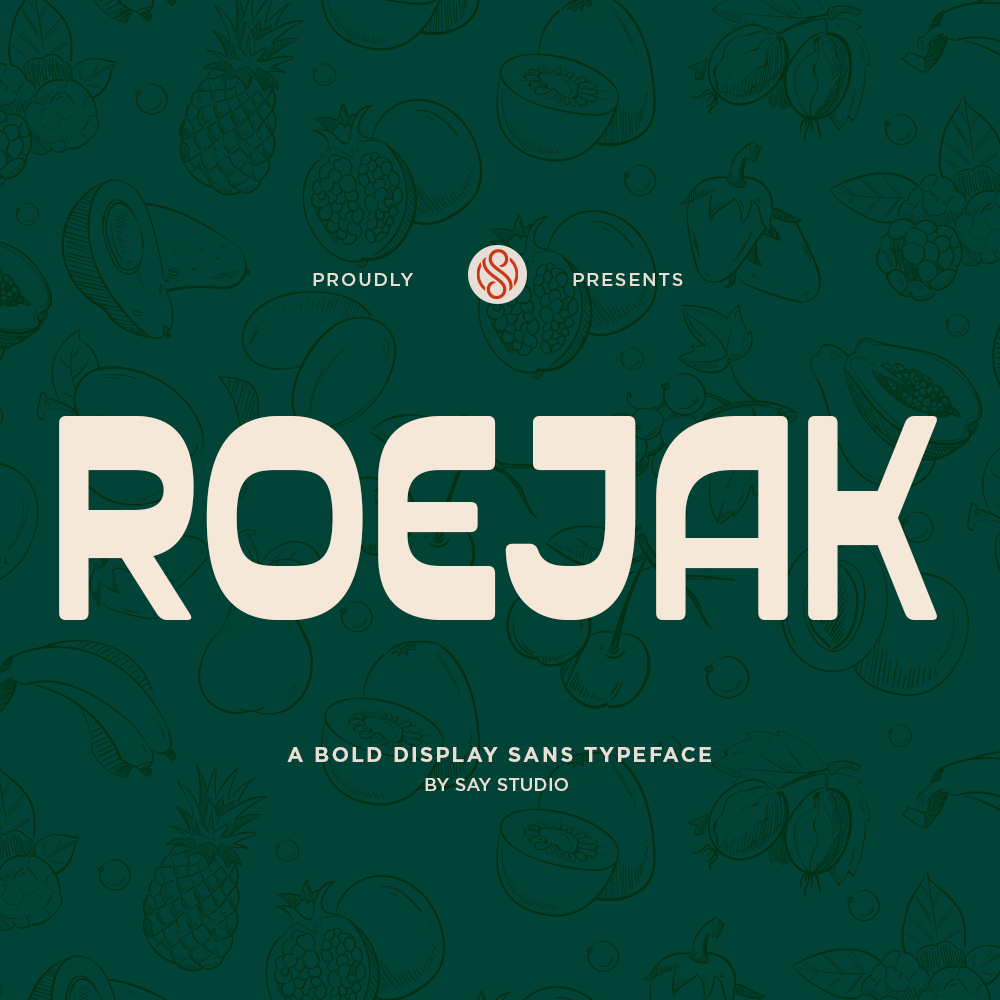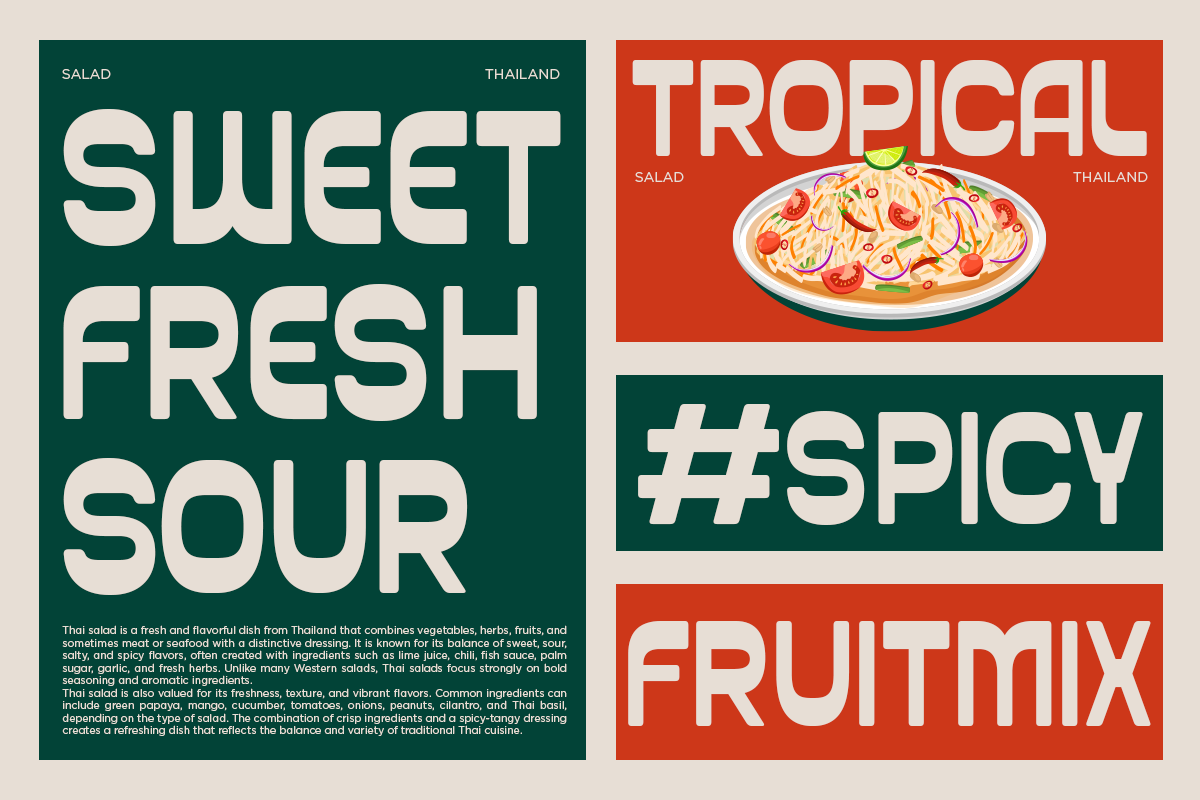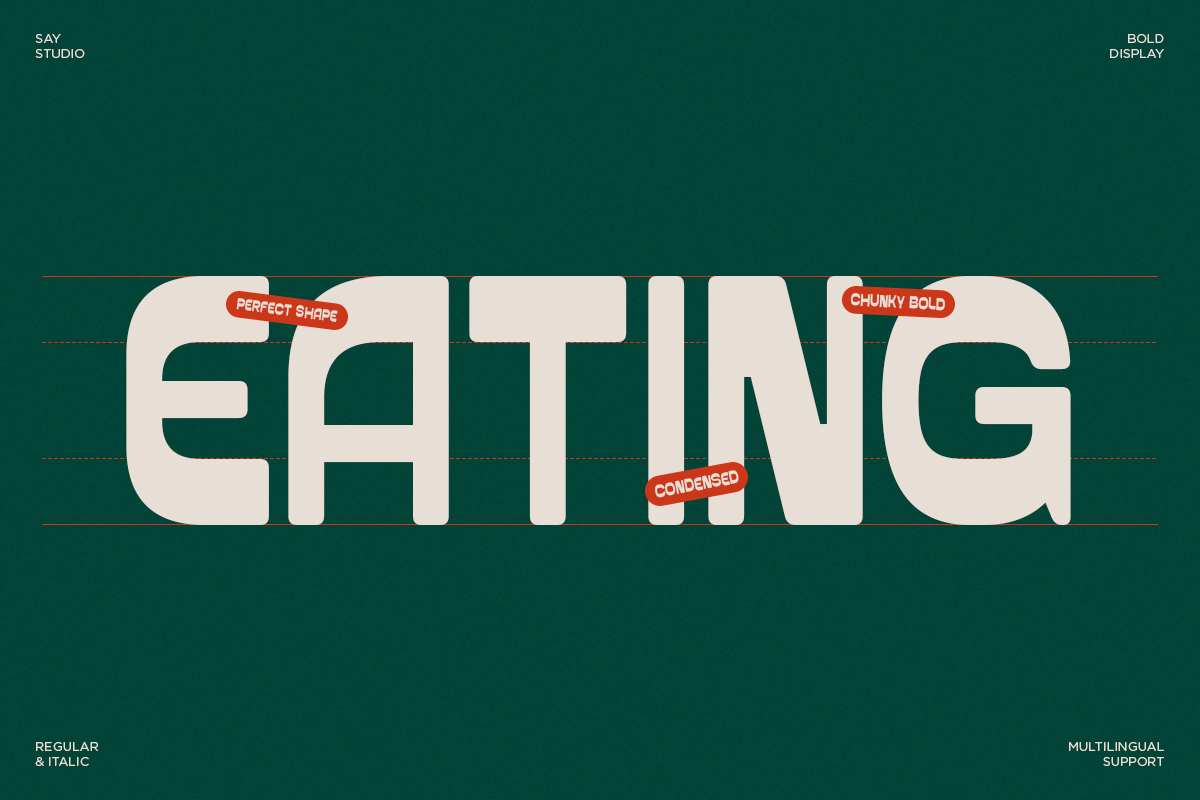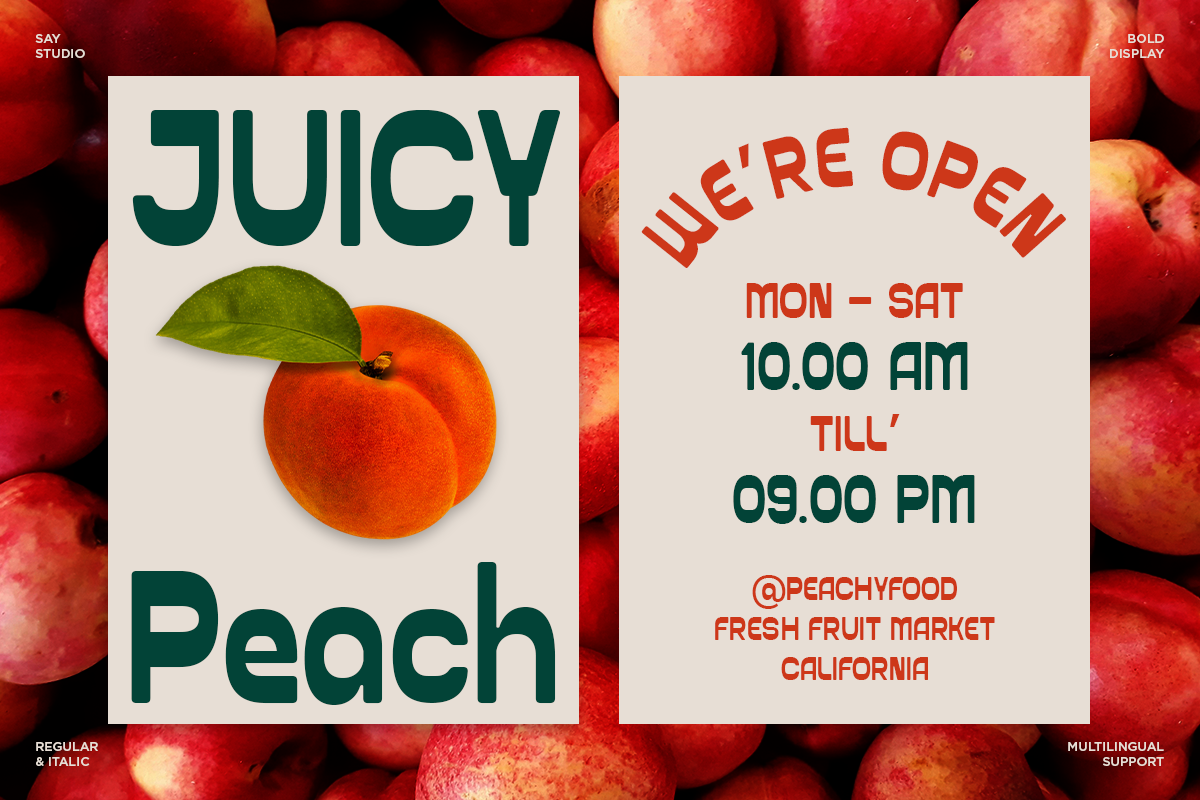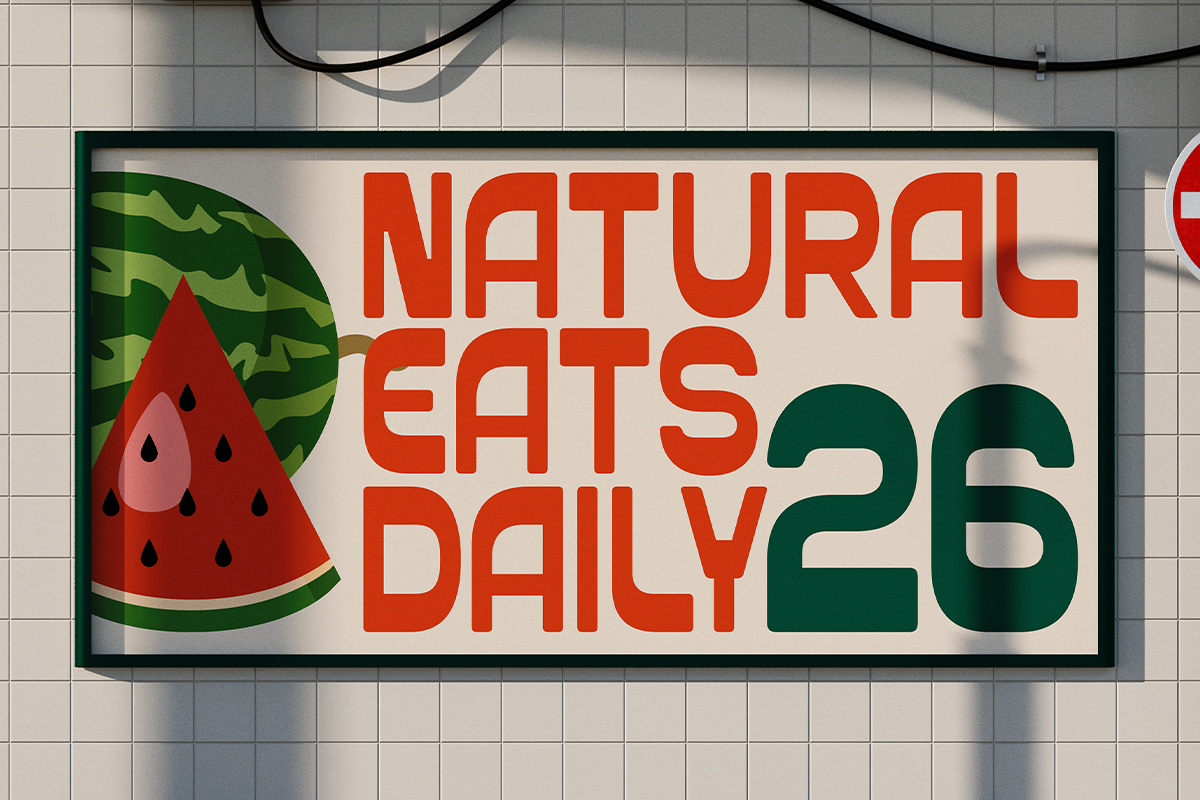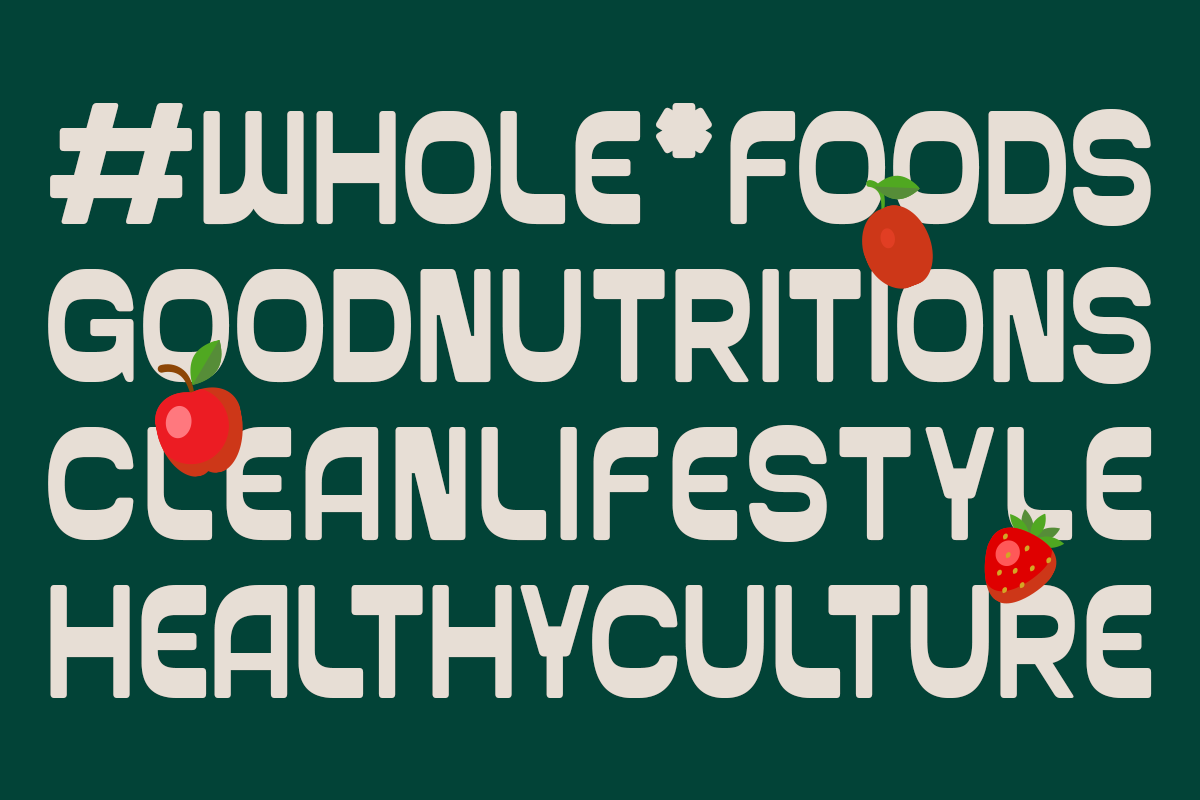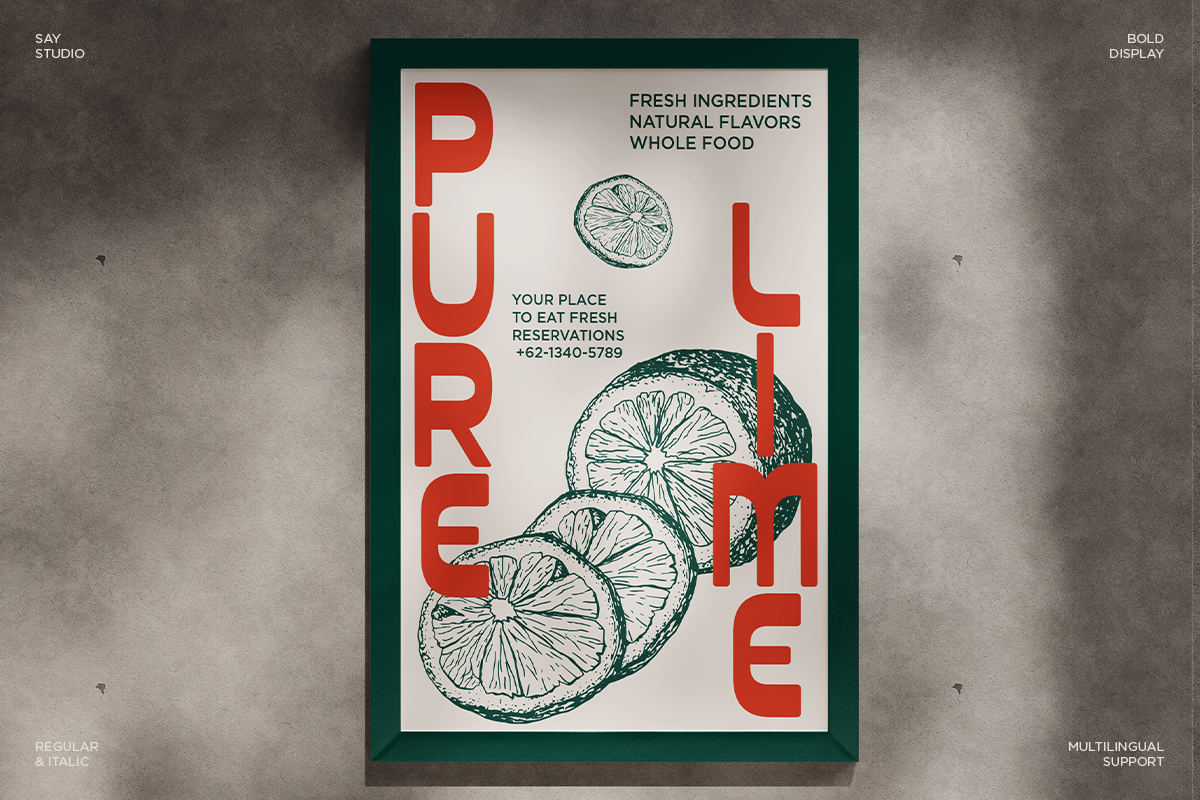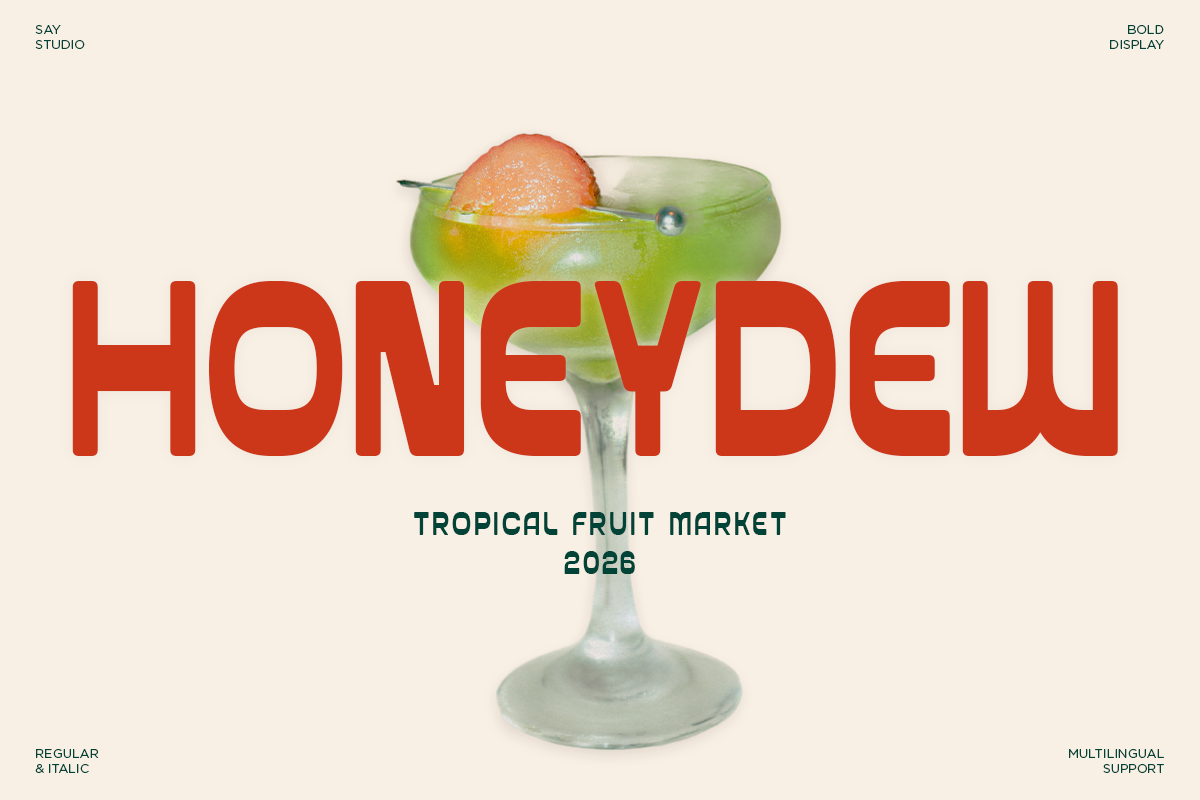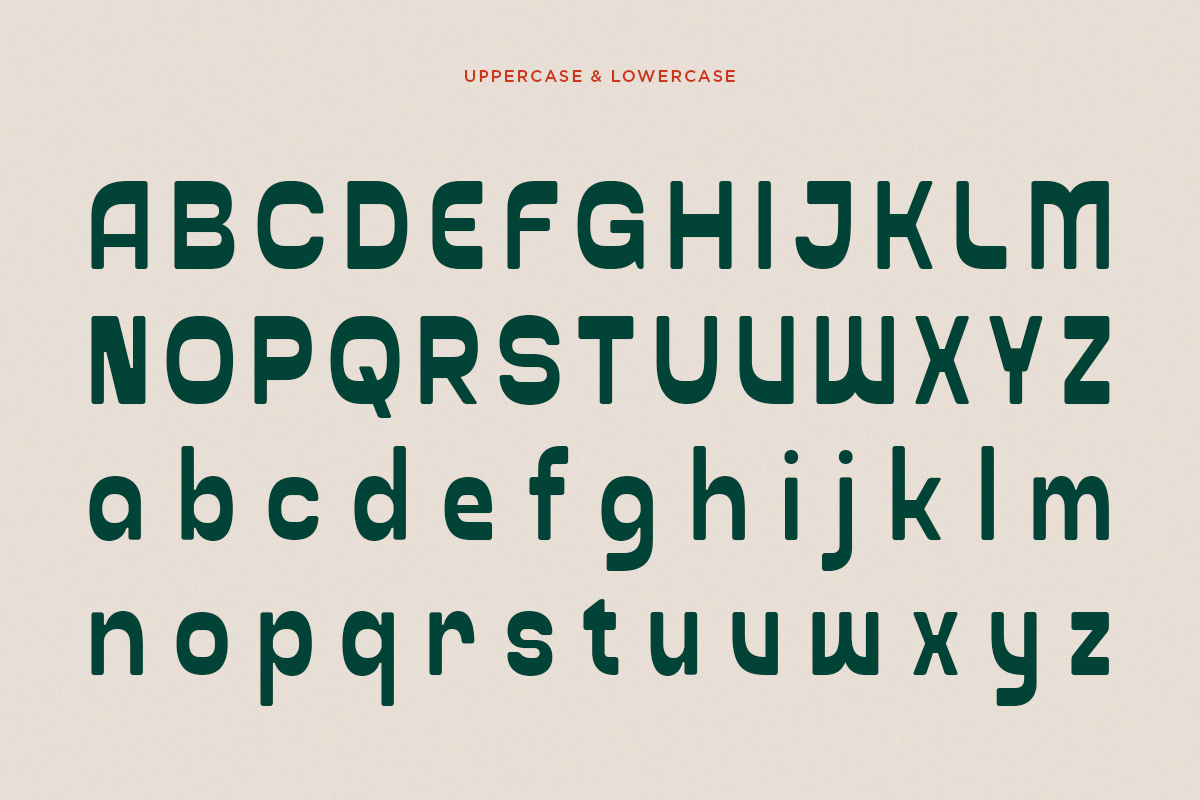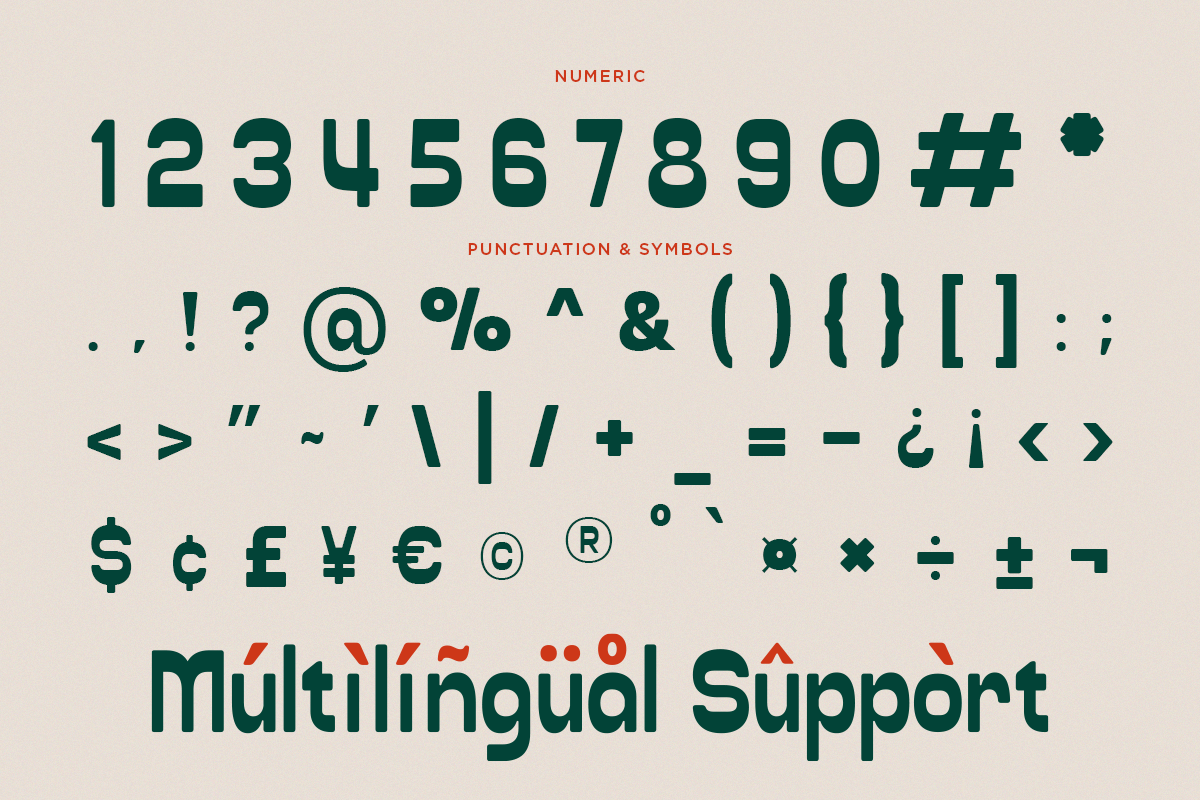
Roejak - Bold Condensed Sans Serif Font
Roejak is a bold display sans serif font designed to bring a strong, playful, and distinctive personality to your typography. Its chunky letterforms, rounded details, and compact proportions create an eye-catching visual style that works beautifully for bold headlines and expressive branding.
Perfect for food and beverage branding, restaurant identities, packaging, posters, menus, editorial designs, logos, advertising, and social media graphics. Roejak is especially effective for projects that need a fun, contemporary look with a subtle retro-inspired character.
Roejak is a bold condensed sans serif display font with chunky letterforms and rounded details, available in Regular and Italic styles with uppercase, lowercase, numbers, symbols, and punctuation. The package includes multilingual support and OTF, TTF, and WOFF file formats.